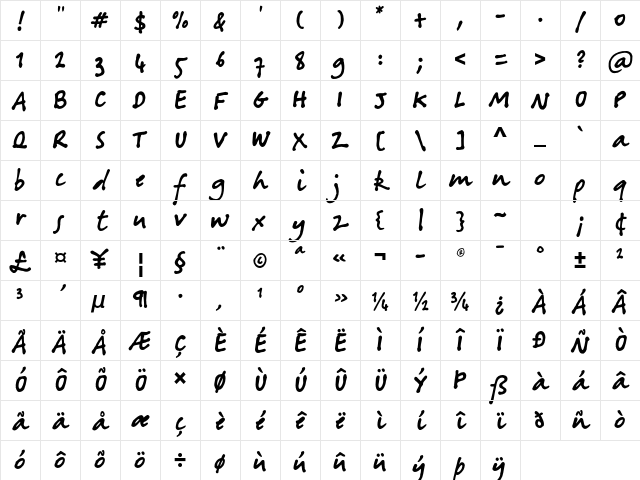
Berranger Hand ITC Std Regular
Designer: Eric De Berranger
Design Context for Berranger Hand ITC Std
Berranger Hand ITC Std flows with the natural rhythm of handwritten lettering, making it ideal for designs that call for warmth and personal expression.
Font Pairing: Combine Berranger Hand ITC Std with a simple geometric sans for maximum contrast - the tension between flowing curves and clean structure is a classic typographic pairing.
Pro Tip: Use Berranger Hand ITC Std for short runs of text - names, titles, or taglines. Extended body copy in script faces tires the eye quickly.